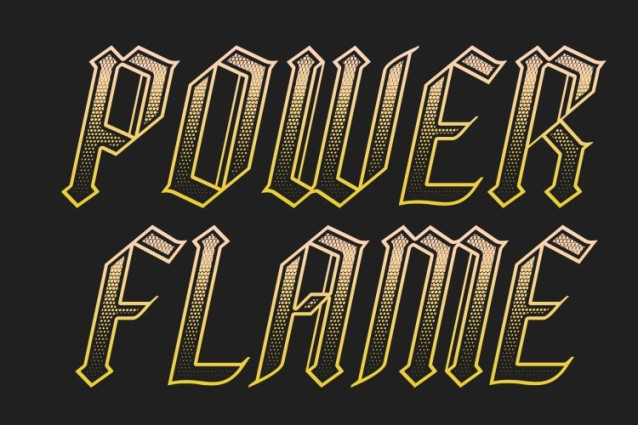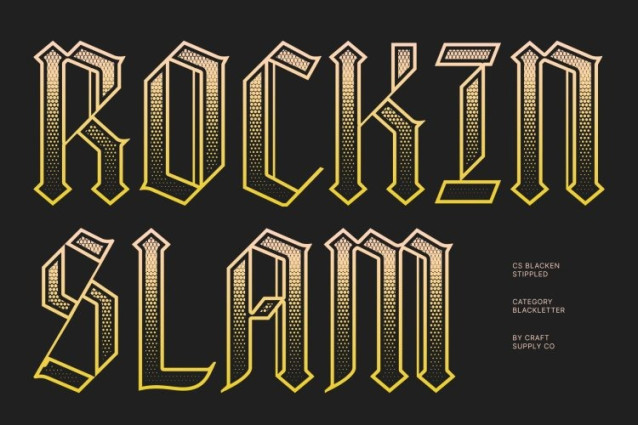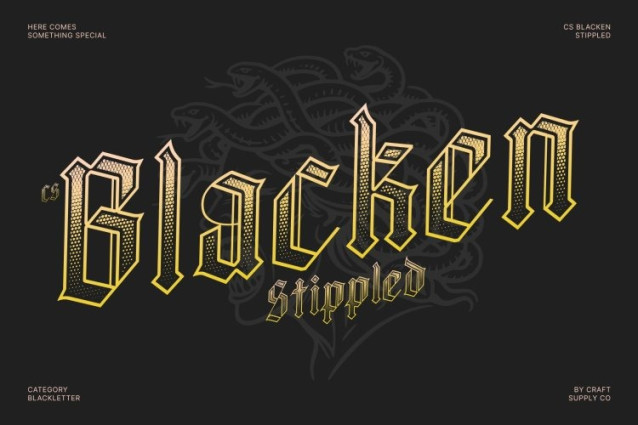
CS Blacken Stippled Font
CS Blacken Stippled Font – This is a distinguished blackletter serif font that blends historical grandeur with an atmospheric sense of mystery. Its ornate Gothic letterforms evoke the elegance of medieval manuscripts and classical European typography, delivering a majestic and commanding visual identity.
Intricate and Dramatic Letterforms
Defined by bold strokes, sharp angles, and elaborate detailing, creates a dramatic typographic presence. The intricate construction of each character enhances the sense of depth and craftsmanship, allowing the font to convey authority and sophistication. Its ornamental structure gives designs a strong visual personality while maintaining the classic elegance associated with traditional Blackletter styles.
Distinctive Stippled Texture for Vintage Character
The stippled effect introduces a dense dotted texture inspired by traditional stippling and ink-dot illustration techniques. This subtle dotwork enriches the letterforms with artistic depth, giving the font a handcrafted engraving feel. The textured finish enhances the vintage atmosphere while adding a unique visual layer that makes the font stand out in expressive and decorative compositions.
Perfect for Formal, Historical, and Dramatic Designs
This is ideal for projects that require a sense of grandeur, tradition, and visual strength. It works beautifully for historical artwork, luxury branding, gothic posters, editorial headlines, themed event materials, and classic document design. With its majestic Blackletter form and textured stippled detail, the font delivers a powerful and distinguished typographic statement.